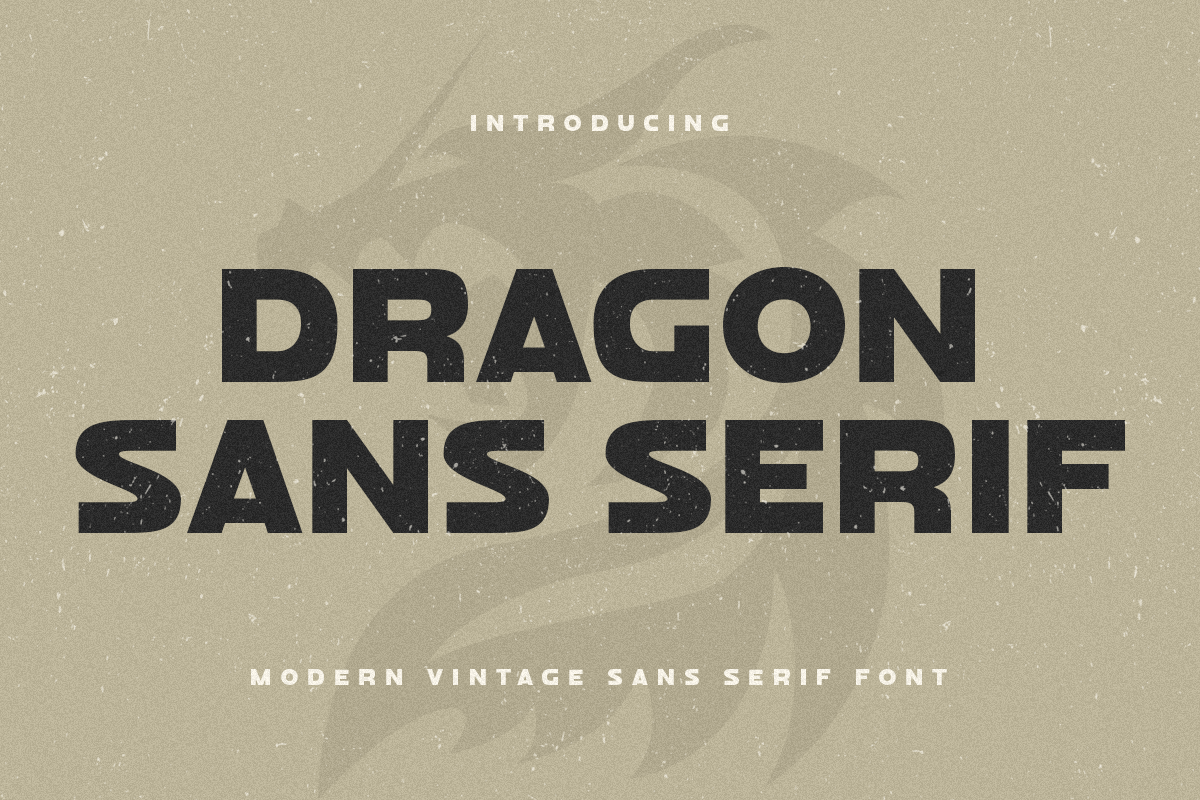
Dragon Sans Serif
-Modern Vintage Sans Serif Font
Dragon Sans Serif
Dragon is a Modern Vintage Sans Serif Font
A New Vintage font that we created special for Unique branding needs, with extra ligature in unique style that ready to add value of your brand. It's so nice to leverage designer or product owner that need solutions to make their design look more unique and vintage.